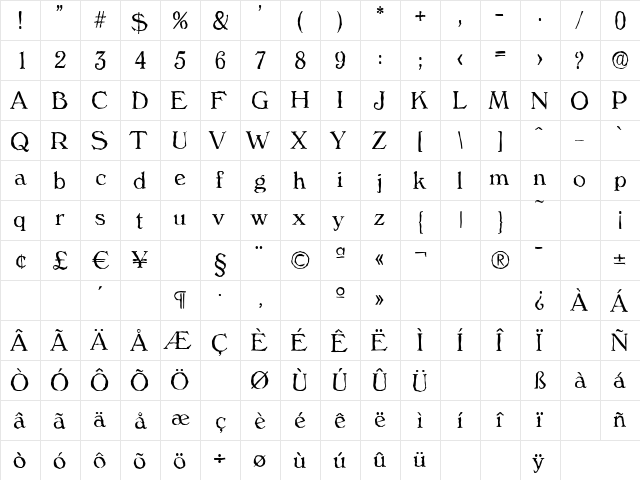
VeronaAntique-Light Regular
Design Context for VeronaAntique-Light Typeface
VeronaAntique-Light wears its vintage influences proudly, with letterforms that recall mid-century signage, classic packaging, and nostalgia-driven design. The delicate stroke weight brings airiness and refinement to layouts.
Perfect for vintage-inspired branding, retro packaging, nostalgia campaigns, and period-accurate editorial design.
Font Pairing: Combine VeronaAntique-Light with a simple slab or neutral sans — period-accurate companions reinforce the vintage feel without competing for attention.
Pro Tip: Use VeronaAntique-Light for headlines and pull quotes rather than body copy — its personality is best appreciated in short, focused bursts.